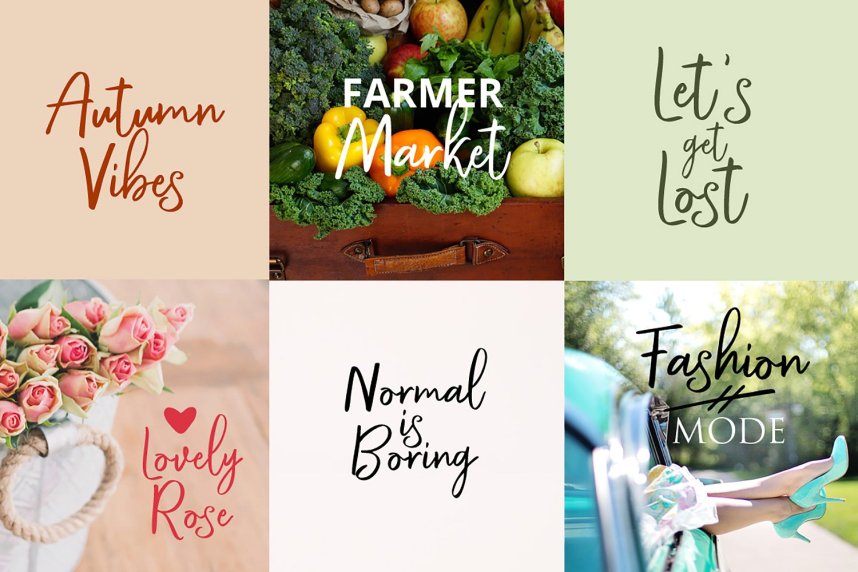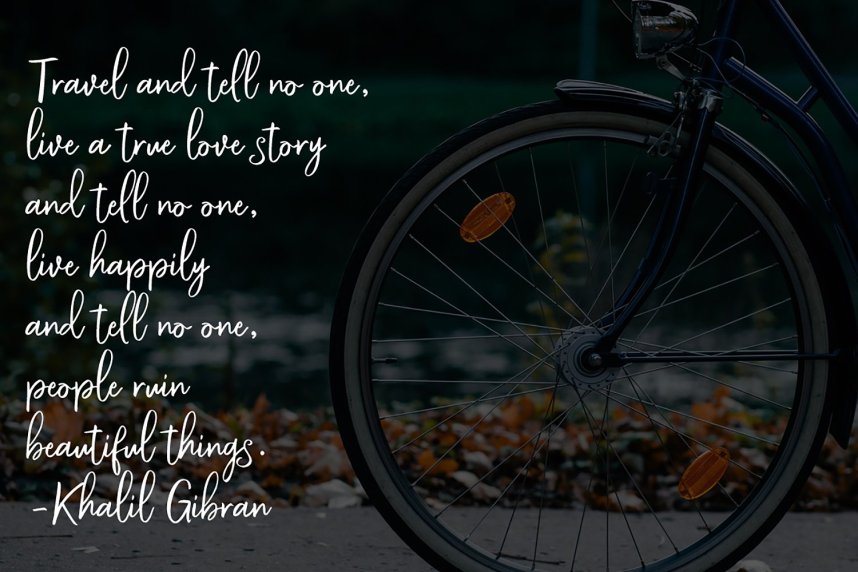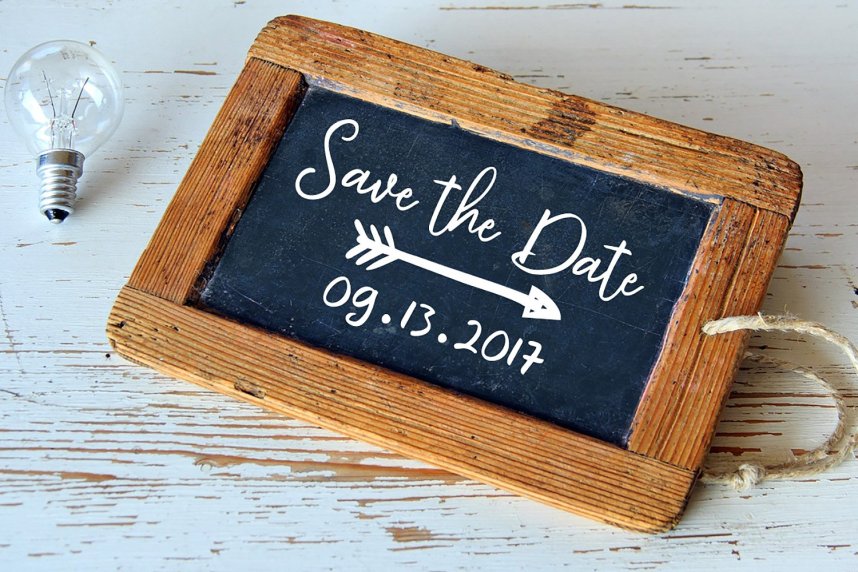
Roullet Script Font
A modern calligraphy typeface. If you are looking for a typeface for your design project then this would be a good choice. Introducing Roullet. Roullet is an created by Weasel Foundry. Roullet Fonts is a stylish calligraphy font that features a varying baseline, smooth line, modern and elegant touch. Can be used for various purposes, such as headings, signature, logos, wedding invitation, t-shirt, letterhead, signage, lable, news, posters, badges etc.